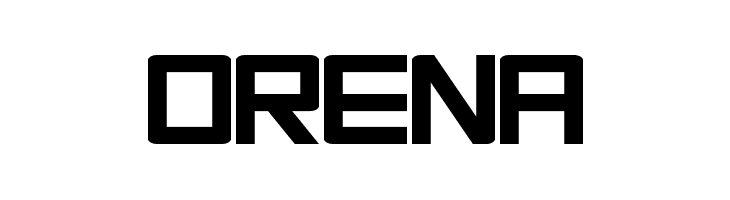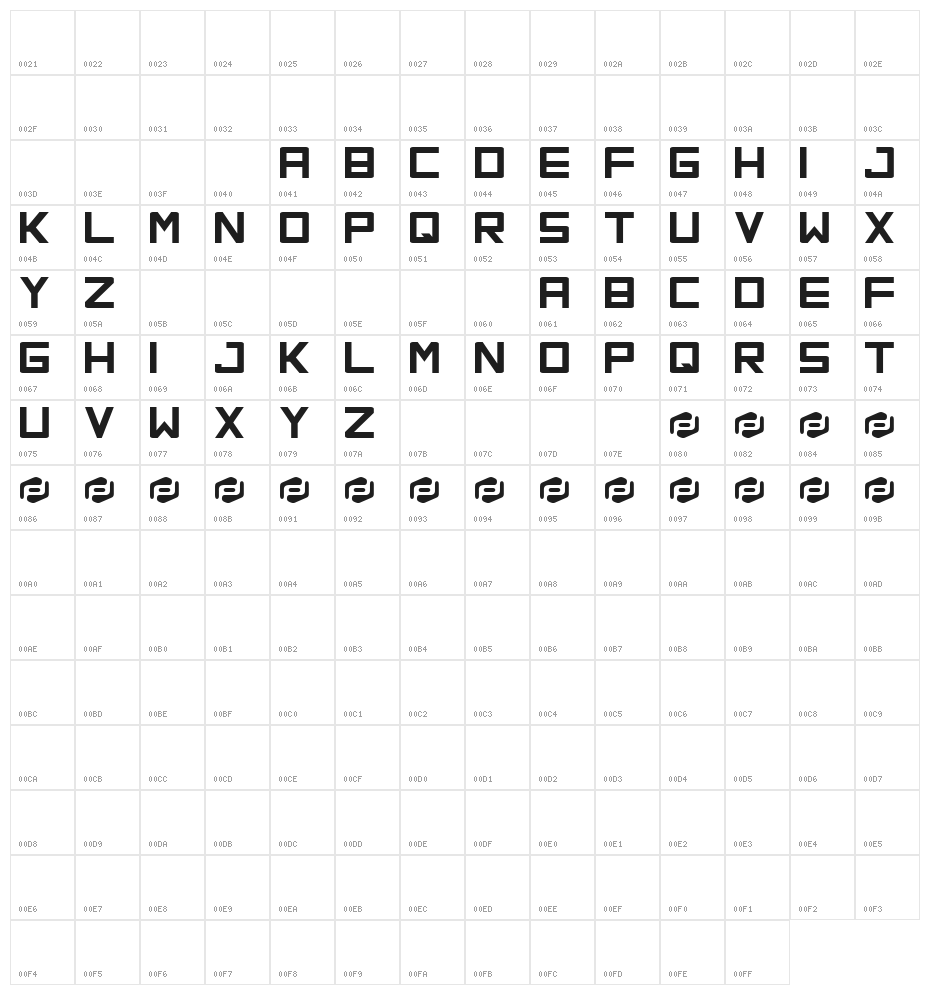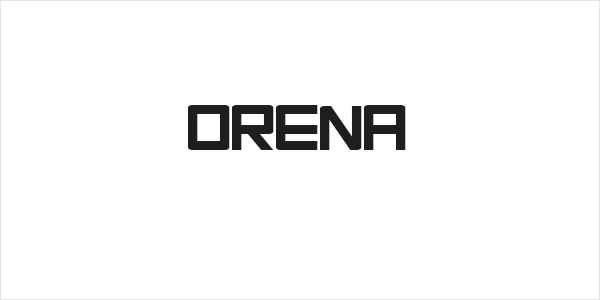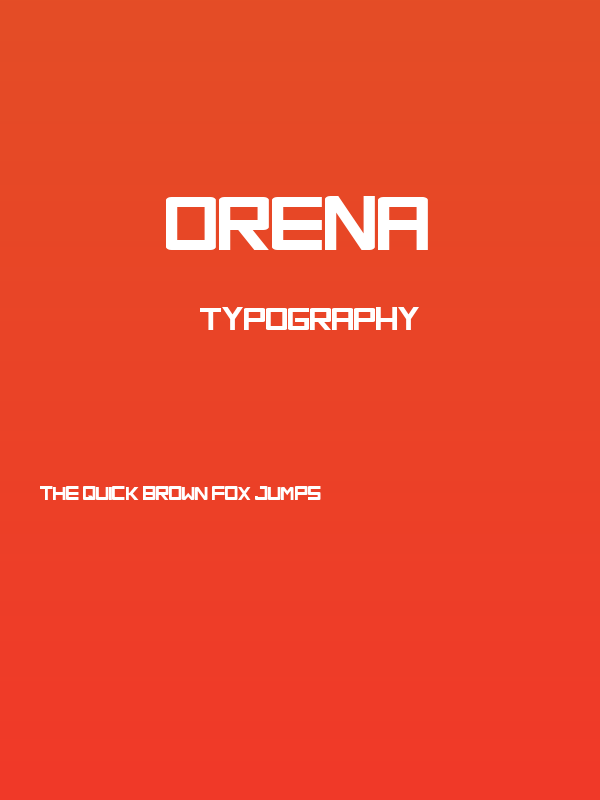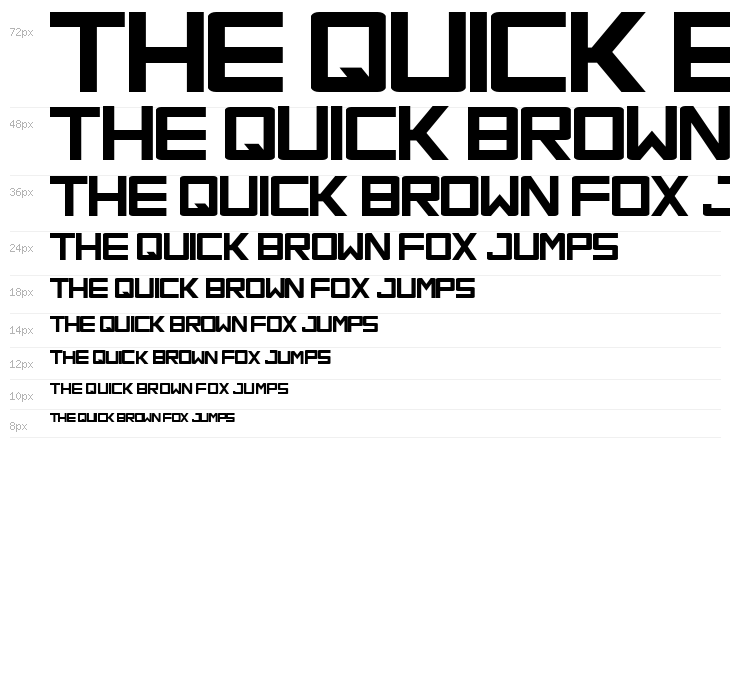
Orena Font
Orena Description
This font features a bold, geometric design with a futuristic and modern aesthetic. Each character is constructed with thick, uniform strokes, creating a strong visual impact. The angular shapes and straight lines give it a mechanical feel, while the consistent stroke width adds to its boldness. The font is highly legible and maintains a clean, structured appearance, making it suitable for attention-grabbing headlines or titles. Its unique style is characterized by a blocky, almost digital look, which can be appealing in tech-related designs or modern branding projects.
| Proposed Projects | Ideal for tech branding, futuristic designs, digital interfaces, and modern advertising. |